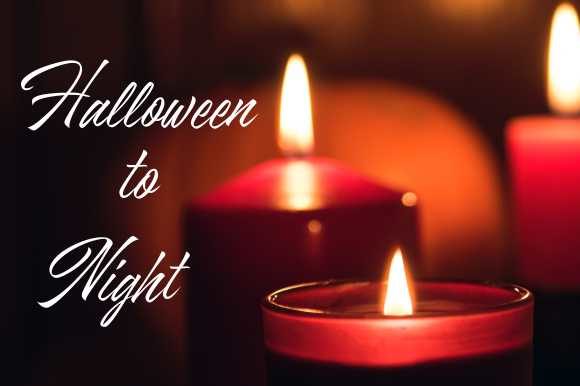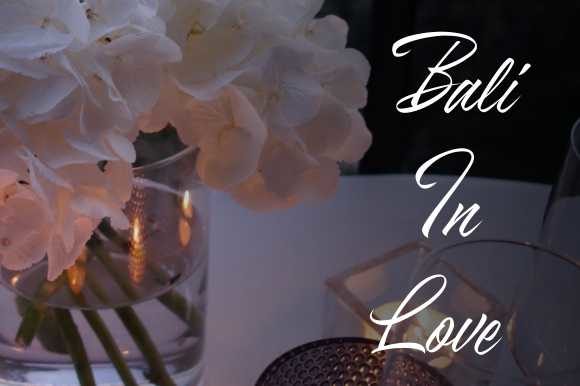
Halloween Font
About Halloween Font
Give your design a genuine Halloween signature impression with this hand-brushed typeface. It is suitable for invitations, labels, menus, logos, fashion, makeup, stationery, letterpress, romantic novels, magazines, books, wedding cards, packaging, labels, t-shirts and more.